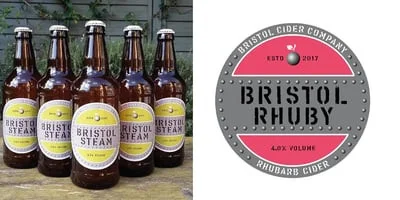
Kelly Twenty Font
The Kelly Twenty Font is perfect for contemporary fashion branding, modern lifestyle magazines, trendy social media graphics, millennial marketing campaigns, fresh cosmetics packaging, young adult publications, dynamic event promotions, innovative tech startups, stylish blog headers, and cutting-edge digital content.
What makes the Kelly Twenty Font exciting is its vibrant ability to capture the energetic spirit and contemporary confidence of modern youth culture through fresh, dynamic letterforms that embody the optimism and digital-native sophistication of today's connected generation. This modern typeface features contemporary proportions, trend-forward character construction, and youthful design elements that instantly convey innovation, authenticity, and the bold creativity that defines Generation Z and millennial aesthetics. Each letter pulses with the energy and forward-thinking attitude that drives contemporary culture and digital communication.
The Kelly Twenty Font family includes regular, bold, light, and italic versions, along with modern symbols, trendy ornaments, and contemporary decorative elements that enhance its youthful appeal across various modern and lifestyle design applications.
Whether you're creating contemporary brand identities or designing modern lifestyle content, Kelly Twenty Font delivers maximum freshness and authentic contemporary appeal. Its expertly crafted modern letterforms ensure excellent readability while maintaining that essential youthful character that speaks to today's digital audiences seeking genuine contemporary style and innovation. The font's modern features include contextual alternates, trendy ligatures, and contemporary variations that automatically create authentic modern aesthetics. Digital marketers and contemporary brand creators consistently choose this font for projects requiring genuine modern credibility and youthful appeal. The Kelly Twenty Font transforms ordinary text into vibrant expressions of contemporary culture, making it an essential component of any designer's modern typography toolkit.